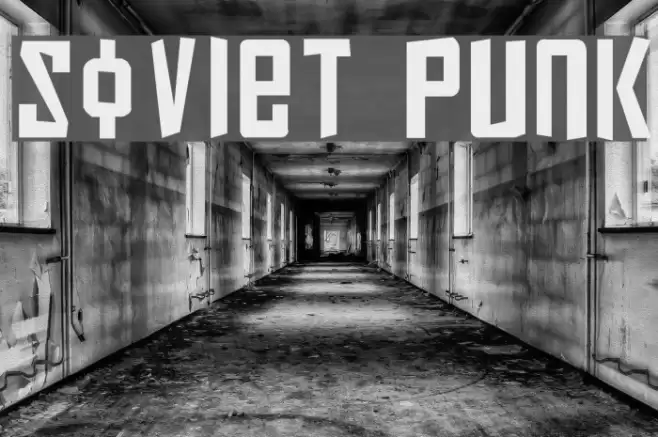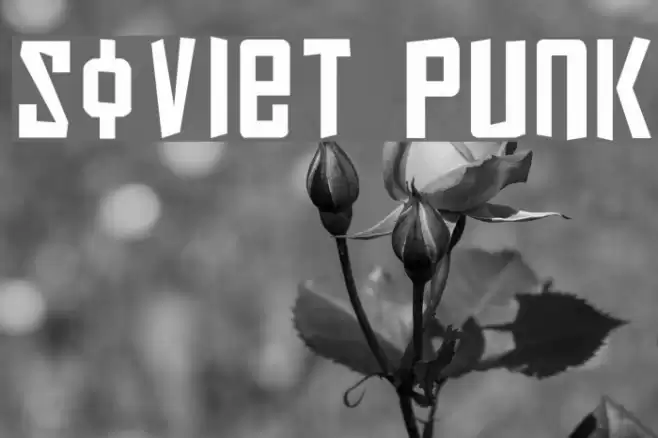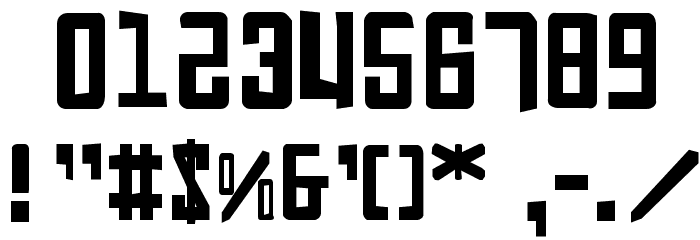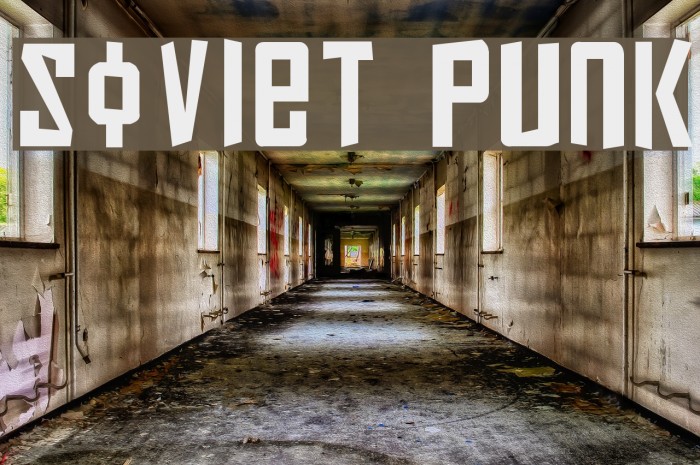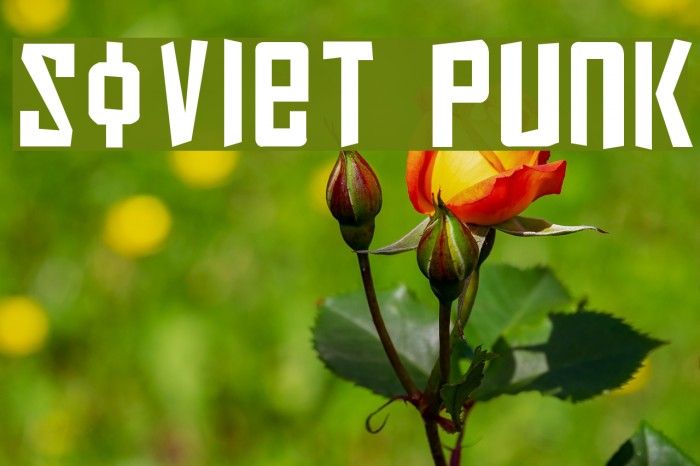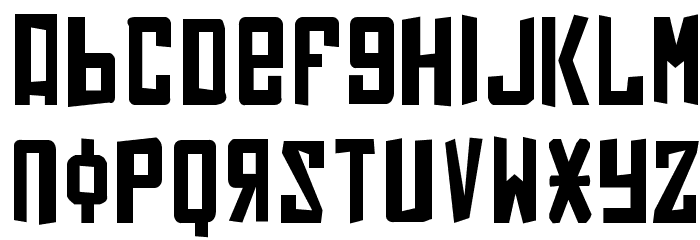
Soviet Punk Font
Soviet Punk Description
This font features a bold, angular design with a distinctly industrial and geometric aesthetic. The characters are constructed with sharp edges and a blocky structure, reminiscent of Soviet-era design elements combined with a punk rock attitude. The uppercase and lowercase letters maintain a consistent height, creating a uniform appearance. The numerals and special characters follow the same stylistic approach, ensuring cohesion across all glyphs. This font's unique style makes it stand out, offering a strong visual impact.
A bold, angular font with a Soviet-industrial and punk rock aesthetic from Uncategorized fonts.
- Proposed Projects: Ideal for projects needing a bold statement, such as posters, album covers, or branding for edgy or industrial-themed products.
- Overall Style: Modern, Industrial